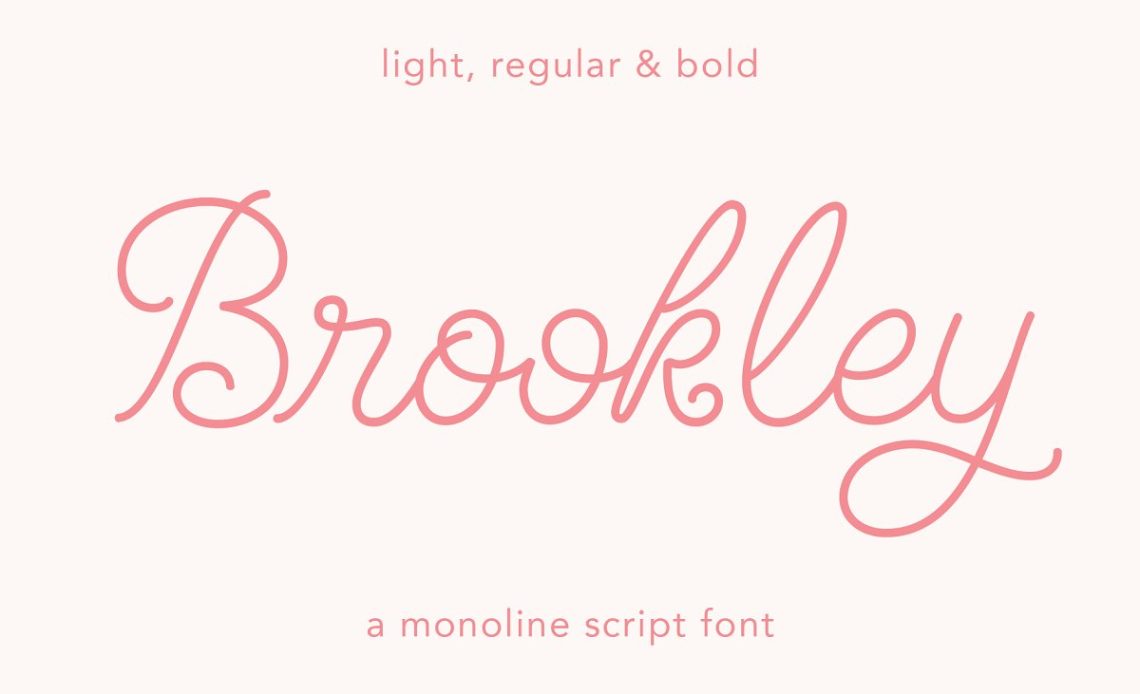
Introducing Brookley - Monoline Script Font, a captivating and versatile addition to your font collection. Designed by the talented Danielle Eneh, this hand-drawn script font is perfect for those seeking a modern and elegant touch for their designs.
With its smooth edges and clean look, Brookley is the ideal choice for minimalistic and contemporary projects. Whether you're working on branding, social media posts, product packaging, labels, or invitations, this font will effortlessly elevate your creations to a whole new level.
Brookley comes in three weights - light, regular, and bold, allowing you to choose the perfect style to complement your design vision. With a total of 372 glyphs, including uppercase and lowercase letters, numerals, and punctuation, this font offers a wide range of customization options.
But what sets Brookley apart is its OpenType alternates and ligatures, making customization a breeze. With just a few clicks, you can transform your text into a unique and eye-catching masterpiece. Whether you're a beginner or an experienced designer, this font is designed to inspire creativity and ease of use.
Worried about language support? Fear not, as Brookley includes multilingual support for Western and Central European languages. No matter where you are in the world, this font is ready to help you communicate your message effectively.
In conclusion, Brookley - Monoline Script Font is the perfect choice for those seeking a font that combines elegance, modernity, and versatility. Its captivating design, smooth edges, and numerous customization options make it a must-have for any designer or creative individual looking to make an impact.